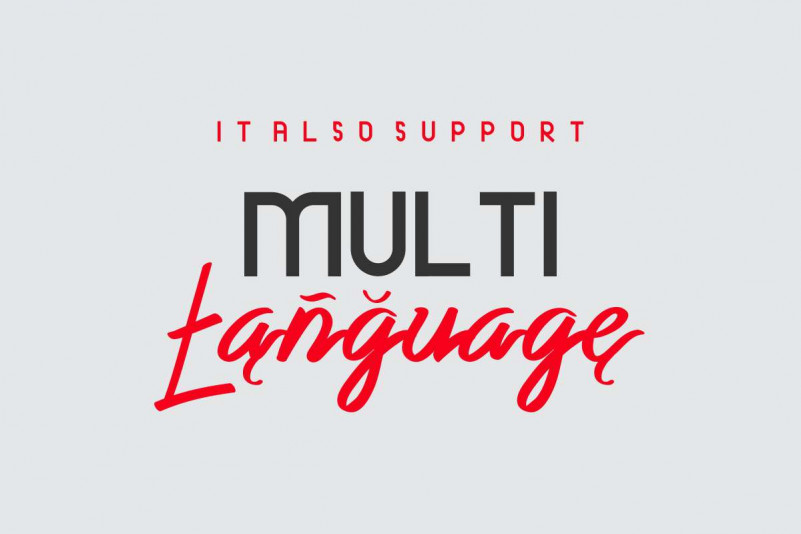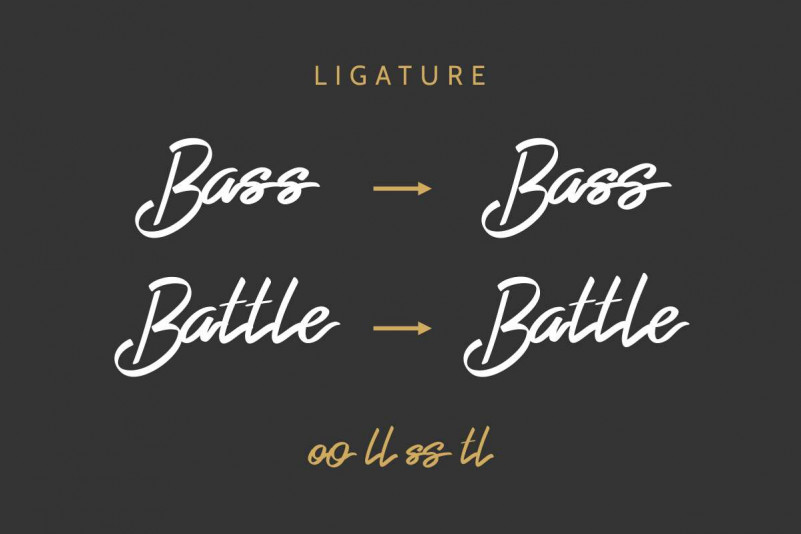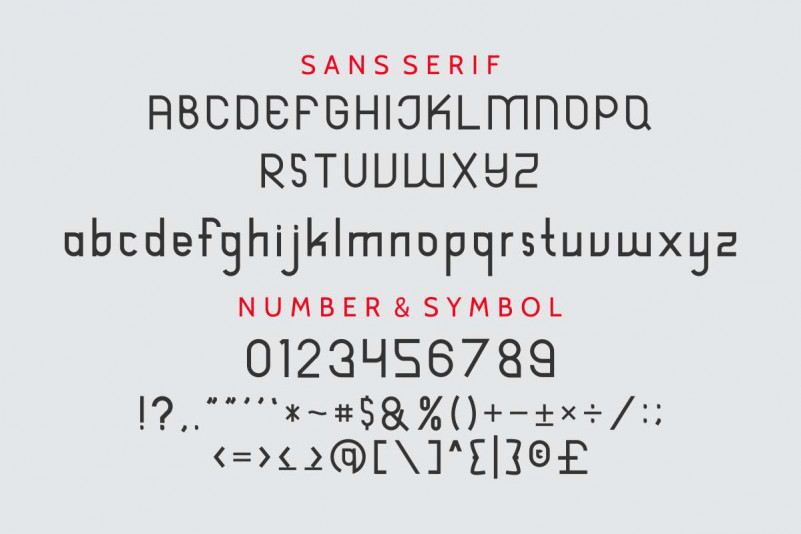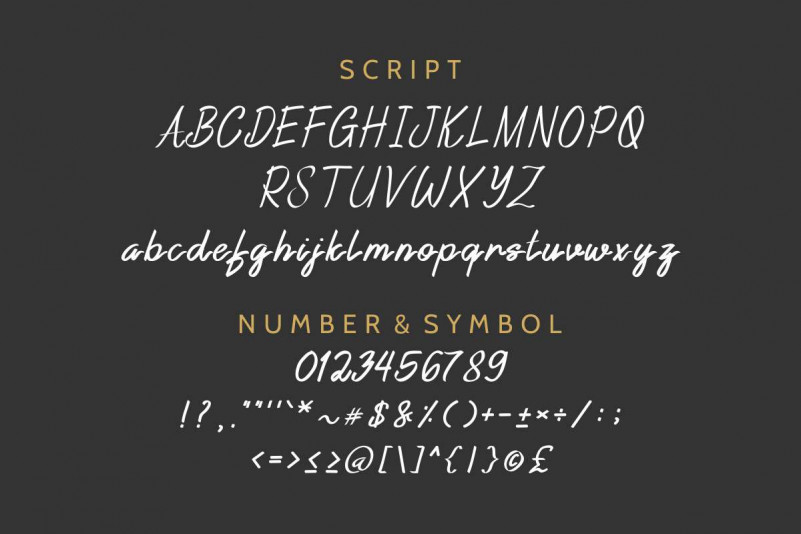
Reyburn Font Family
Hi Everyone! Introducing our newest font family : Reyburn Font Family! Reyburn is a new modern family consist of four font styles. It has a fresh, elegant and stylish glyphs. It also support multilanguage accents